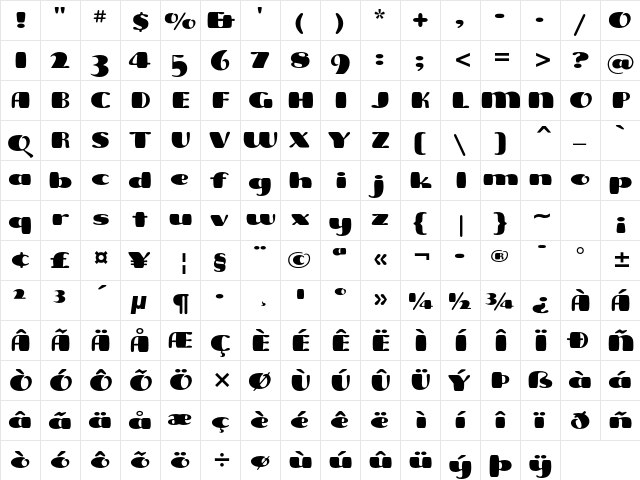
Freddo ITC Std Regular
| Designer | James Montalbano |
Design Context for Freddo ITC Std Typeface
Freddo ITC Std is a composed and adaptable typeface that performs quietly and consistently across a wide range of design contexts.
Pro Tip: Pair Freddo ITC Std with a font of contrasting weight or personality to build a more expressive typographic hierarchy.